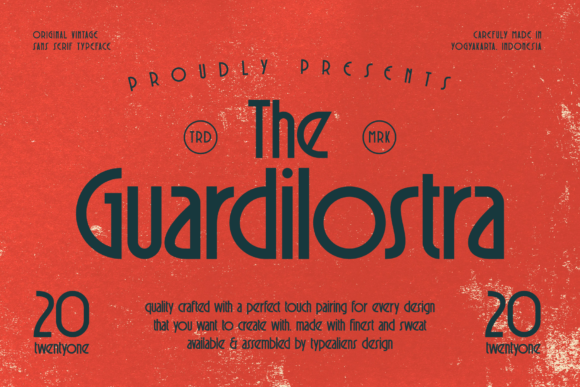
Introducing Guardilostra Font: A Vintage-Styled, Unique, and Cool Sans Serif Font
In the world of typography, fonts play a crucial role in conveying messages, expressing emotions, and creating visual identities. With the vast array of fonts available, designers often seek unique and versatile typefaces that can elevate their designs. One such font that has gained attention in recent times is Guardilostra Font, a vintage-styled, unique, and cool sans serif font. In this article, we’ll delve into the features, benefits, and uses of Guardilostra Font, exploring how it can add a touch of adaptability and retro charm to your designs.
Key Features of Guardilostra Font
- Vintage Style: Guardilostra Font boasts a distinctive vintage style that instantly adds a touch of nostalgia and character to any design.
- Unique and Cool: Its sans serif design makes it stand out from the crowd, giving it a fresh and modern feel.
- Adaptable: Guardilostra Font is incredibly versatile, making it suitable for a wide range of design applications, from branding and advertising to packaging and digital media.
- Retro Vibe: The font’s retro charm is undeniable, making it perfect for designs that require a dash of classic flair.
Design Applications of Guardilostra Font
Guardilostra Font’s adaptability and unique style make it an excellent choice for various design applications. Here are some of the ways you can use this font to elevate your designs:
- Branding and Logo Design: Create a lasting impression with Guardilostra Font, perfect for crafting memorable logos and brand identities.
- Advertising and Marketing: Use Guardilostra Font to add a touch of vintage charm to your ad campaigns, making them stand out in a crowded market.
- Packaging Design: Add a retro flair to your product packaging with Guardilostra Font, making your products more appealing to customers.
- Digital Media: Guardilostra Font is perfect for digital media, including social media graphics, website headers, and email newsletters.
Typography Tips for Using Guardilostra Font
To get the most out of Guardilostra Font, here are some typography tips to keep in mind:
- Pair it with Neutral Colors: Guardilostra Font looks great when paired with neutral colors, allowing the font to take center stage.
- Experiment with Font Sizes: Play with different font sizes to create visual hierarchy and add emphasis to specific design elements.
- Use it in Headings and Titles: Guardilostra Font is perfect for headings and titles, adding a touch of elegance and sophistication to your designs.
Font Pairing Suggestions for Guardilostra Font
Font pairing is an essential aspect of typography, and Guardilostra Font can be paired with a variety of fonts to create stunning combinations. Here are some font pairing suggestions:
- Montserrat: A modern sans serif font that pairs well with Guardilostra Font’s vintage charm.
- Lato: A clean and elegant sans serif font that complements Guardilostra Font’s unique style.
- Merriweather: A classic serif font that creates a beautiful contrast with Guardilostra Font’s sans serif design.
Guardilostra Font is a unique and versatile typeface that can add a touch of vintage charm and adaptability to your designs. With its cool sans serif design and retro vibe, it’s perfect for a wide range of design applications. By following the typography tips and font pairing suggestions outlined in this article, you can make the most of Guardilostra Font and create stunning designs that elevate your brand or message.